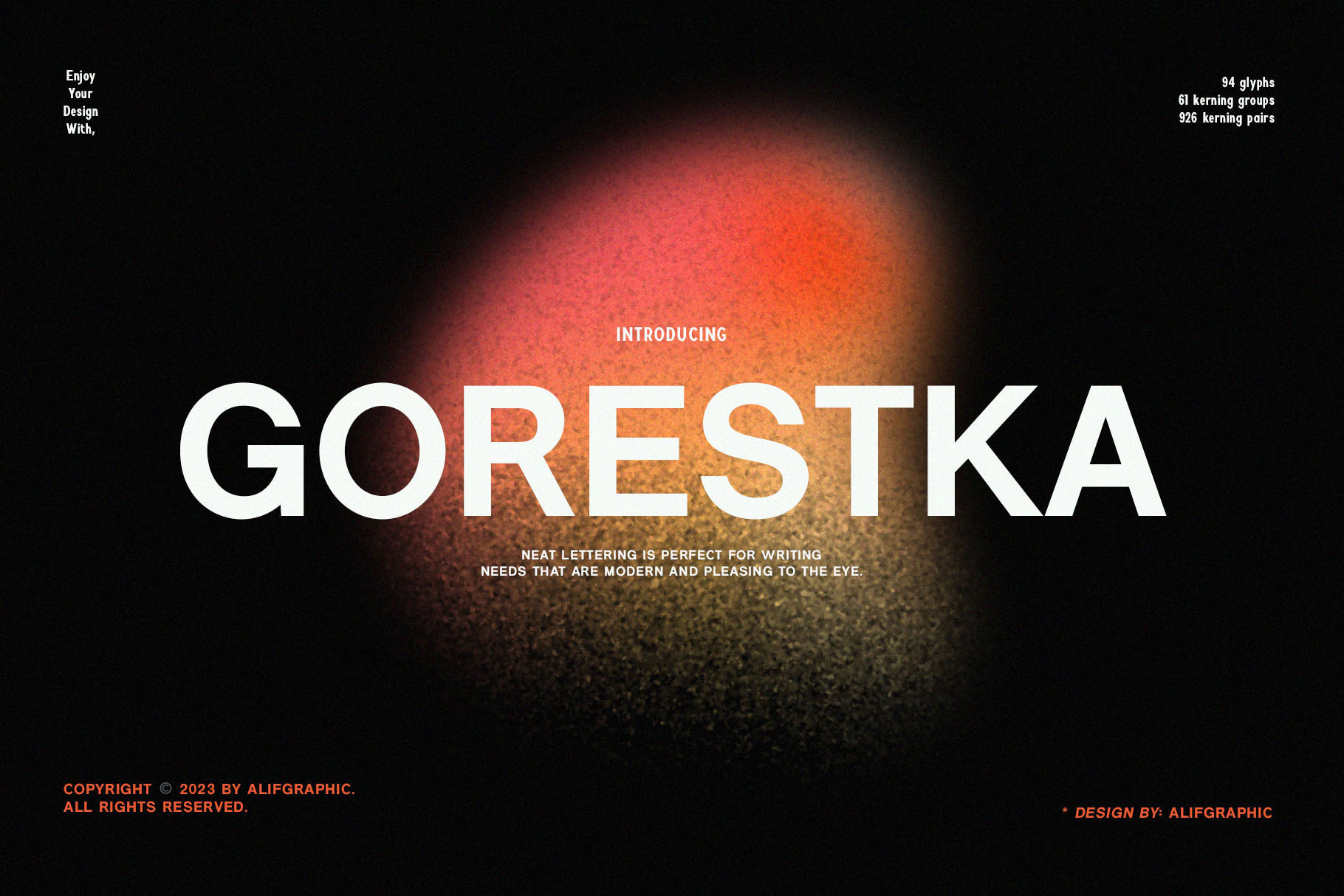
Gorestka - Modern Sans Typeface
Introducing 'Gorestka' Font:
Explore the captivating world of the 'Gorestka' font, featuring a stunning series of letters designed to enhance your creative projects. With its neat lettering, this font is tailor-made for modern and pleasant applications. Whether you're utilizing it for crafts, digital design, presentations, or crafting greeting cards, 'Gorestka' has the potential to become your favorite go-to font, bringing a touch of elegance to any occasion. Immerse yourself in the versatility of 'Gorestka,' and let it be the perfect companion for your diverse design needs.
Ideal for:
- Modern Designs
- Luxury Fashion
- Advertising Campaigns
- Social Media Designs
- Web Designs
- Ready for Creative Expression
- Immaculately Crafted Letters